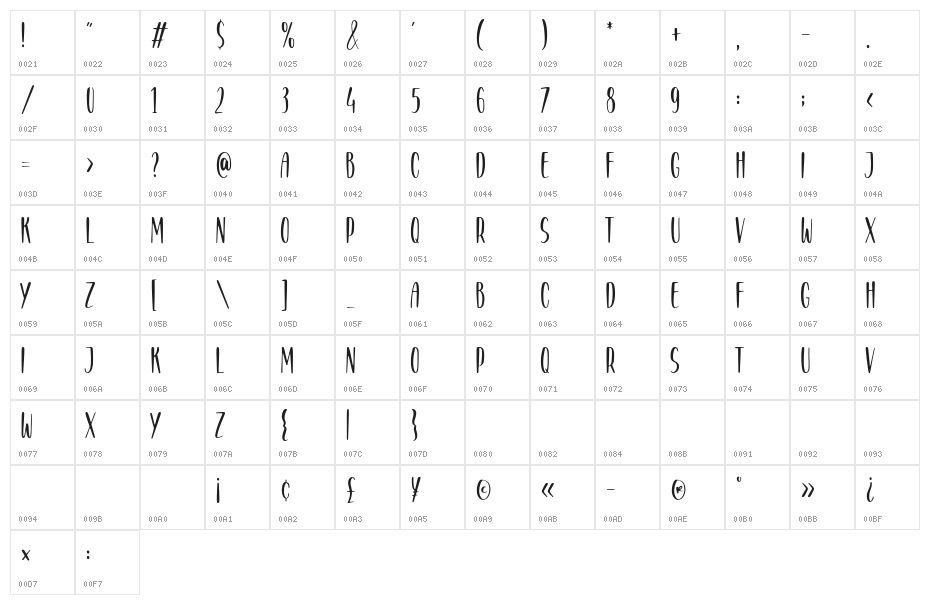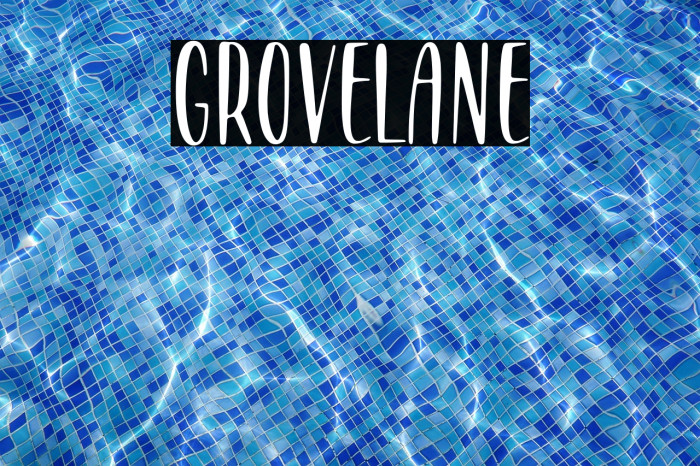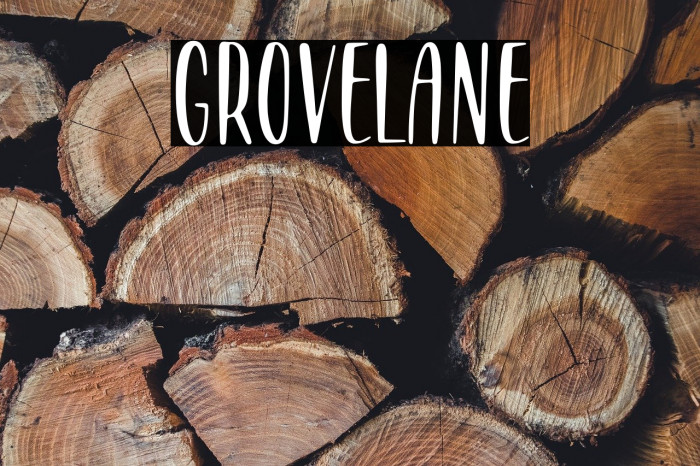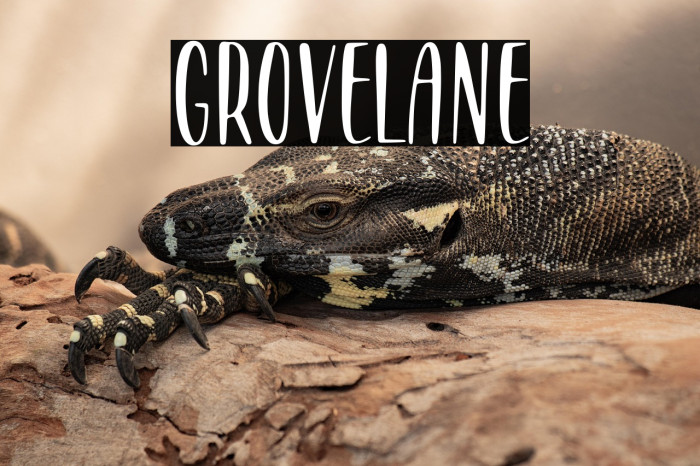
GROVELANE Font
GROVELANE Description
This font features a playful and modern handwritten style with tall, narrow characters. The strokes are smooth and slightly irregular, giving it a casual yet stylish appearance. The uppercase and lowercase letters maintain a consistent height, contributing to a uniform look. The numbers and special characters are designed to match the overall aesthetic, with a slight slant that adds to the dynamic feel. This font is well-suited for projects that require a personal touch, such as invitations, greeting cards, or branding materials. Its unique character shapes and flowing lines make it stand out, while still being legible and versatile.
| Proposed Projects | Ideal for invitations, greeting cards, branding materials, and any project needing a personal touch. |